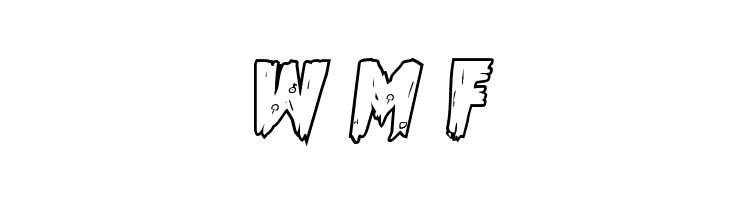
( Fonts by The Font Emporium )
A bold, playful font with wavy, rounded characters and a whimsical style.
( Fonts by Sacred Nipple - Brode Vosloo )
A distressed, chaotic font with jagged, uneven strokes for an edgy look.
( Fonts by Dave Kellam - Brian Stuparyk - www.eightface.com )
A bold, decorative font with a distressed, playful texture.
( Fonts by The Font Emporium )
A bold, vintage-style font with a distressed, eerie aesthetic.
( Fonts by Christopher Hansen )
A grungy, distressed font with an uneven, chaotic style.
( Fonts by Jonathan Paquette - www.jonathanpaquette.com )
A bold, distressed font with a grunge texture, perfect for impactful designs.
( Fonts by Michael Tension - www.TensionType.com )
A rustic, hand-crafted font with uneven strokes and an organic feel.
( Fonts by www.fontdiner.com )
A rugged, distressed font with a rustic, hand-crafted feel.
( Fonts by Christopher Hansen )
A bold, distressed font with a grunge aesthetic and angular, geometric characters.
( Fonts by Gyom Seguin - last-soundtrack.daportfolio.com )
A bold, distressed font with a vintage rock poster vibe.
( Fonts by Sinister Visions - Chad Savage - www.sinisterfonts.com )
A dramatic, jagged font with a hand-drawn, eerie appearance.
( Fonts by Cumberland Fontworks - http://www222.pair.com/sjohn/fonts.htm - S. John Ross )
A distressed, jagged font with an eerie, hand-drawn style.
A bold, horror-themed font with a dripping, eerie style.
A bold, dripping font perfect for horror and gothic themes.
( Fonts by www.endie.prv.pl )
A bold, dripping font with a spooky, horror-themed aesthetic.
( Fonts by Mr Fisk - Mike Larsson - fontorama.net )
A bold, grungy font with a dripping effect, perfect for horror or punk themes.
( Fonts by www.junkohanhero.com )
A distressed, grungy font with a dripping paint effect.
( Fonts by Dreadful Productions - http://usersites.horrorfind.com/home/horror/dreadful/ )
A bold, distressed font with jagged edges and an eerie, dramatic style.
( Fonts by Astigmatic One Eye Typographic Institute - Brian J. Bonislawsky - astigmatic.com )
A spooky, playful font with jagged, irregular letterforms.
( Fonts by www.fontdiner.com )
A decorative font made entirely of star shapes, perfect for festive and playful designs.